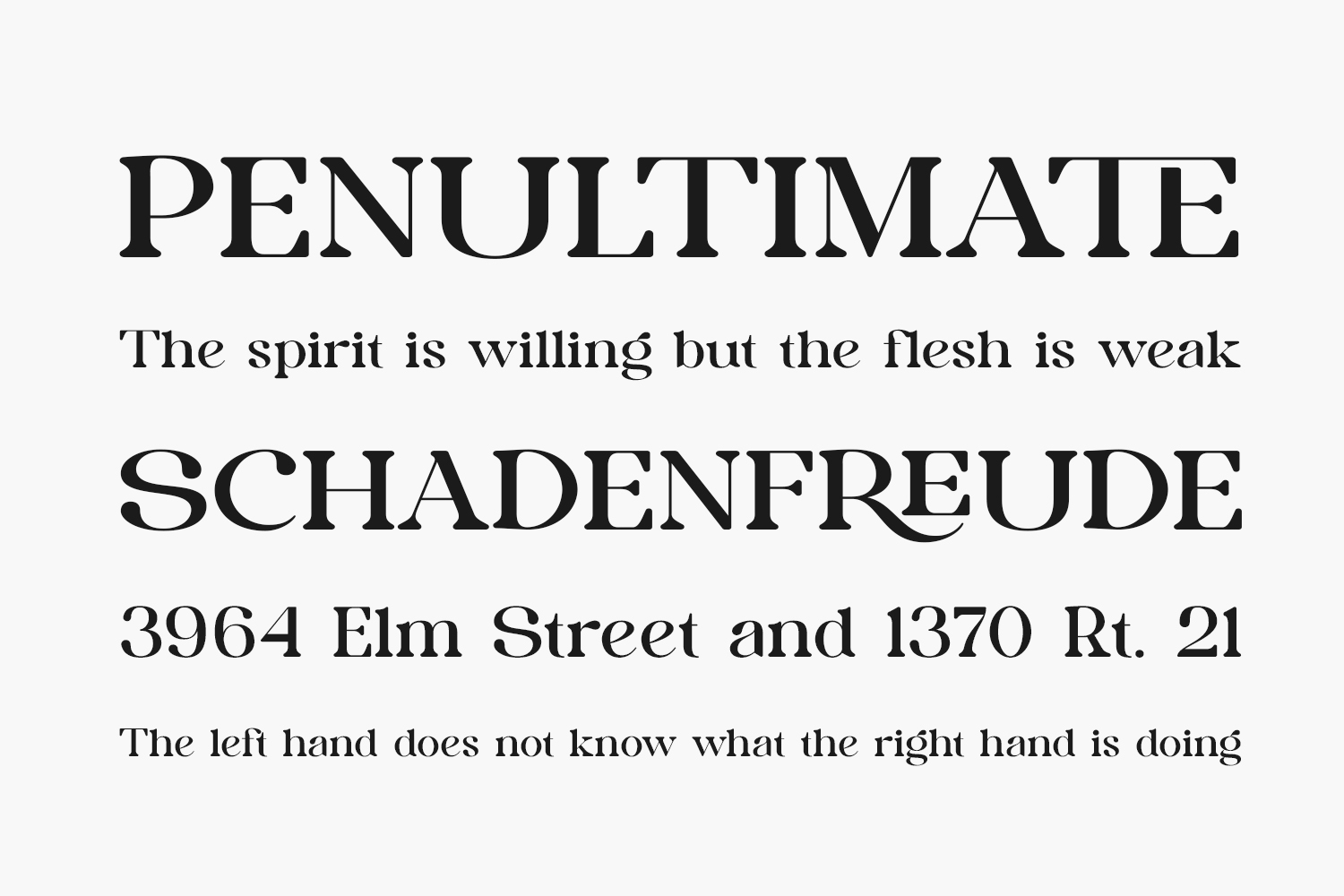
Meet Lumina Free Font, a contemporary retro vintage typeface radiating class, fun, uniqueness, and versatility. With its soft and warm aesthetic, this font captures the essence of confidence, making it an excellent choice for your typography needs. It comes with alternative characters, allowing you to create captivating curves and shapes to enhance your design. Whether for a logo, packaging, restaurant graphics, or any display application, this versatile typeface excels in titles and short text. Lumina ensures your design stands out with style. Download the font for free if you need it for personal use or purchase the full version for commercial use.